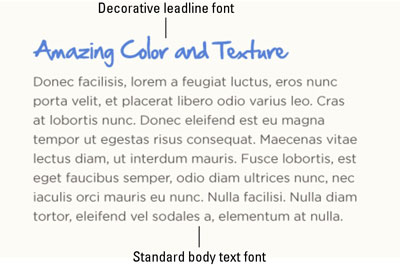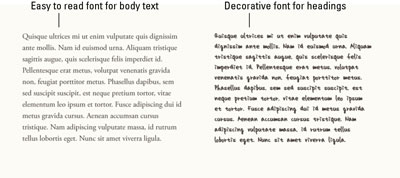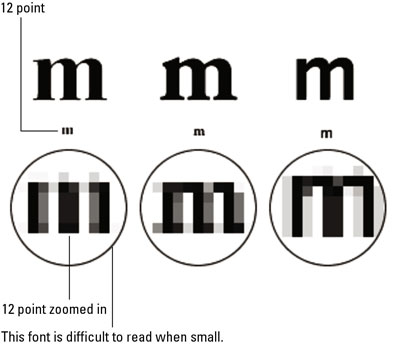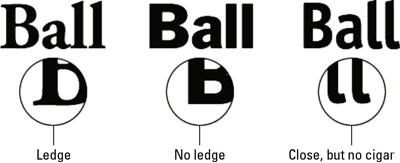
How to Choose Fonts for Your Website
Some fonts don't work well on websites. Unfortunately, too many fonts exist these days for you to find a complete listing of which ones do and which ones don’t. Also, it’s important to understand that fonts, like fashion, go in and out of style for use on the web (for a quick example of an unfashionable font, just do a search on Comic Sans). But there are some general guidelines to help you select the right fonts for different applications.
Standard versus display fonts in web design
In order to choose the right font for your website, you should be familiar with the different categories of fonts. Generally, you should use standard fonts for pages of body text and reserve the fancier or decorative fonts, often called display fonts, for short headings, callouts, and subheadings.
Standard fonts include Garamond, Times, Georgia, Arial, Helvetica, and Verdana, which were designed for legibility and work well for larger blocks of text. They’re common fonts that many people have heard of. There are a number of fonts, however, that fall into the standard category with names that you may not recognize.
Font weights for body copy are usually called Roman, Body, or Regular. Readers aren’t distracted by the design of these classic fonts, enabling them to focus on the text at hand. Standard fonts are designed for easy reading, so they work well in the smaller point sizes and in larger blocks of text.
Fancier fonts, on the other hand, or other weight variants of a font like Bold, Condensed, Semi Bold, Black, and Ultra, have a lot of detail and personality, ideal for larger-set headings and subheadings consisting of a few words. These fonts grab people’s attention, but they aren’t designed for a long page of text. You can often distinguish the decorative fonts just by their names, such as Kid Print, Comic Sans, and so on (see the following figure).
Font thickness on the web
The thickness of each individual letter (or line weight) contributes greatly to a font’s readability. Because pixels on computers aren’t comparatively very small, fonts that are too thin can fade away into oblivion, especially at smaller point sizes.
If you examine any font, you notice that the thickness varies in each letter. For example, take a look at the letter m in the example, below. The letter is set in a few different typefaces for comparison. Some fonts, such as Kepel Bold (the example on the far left), change drastically between the thick and thin areas of a single letter. At a small point size, for the letter m, all you see is a blob of three bold strokes — the thin strokes disappear altogether. When choosing fonts for small-point-size text, therefore, find versions that don’t have a big variance in the stroke thickness. Also, avoid the lightweight editions of fonts — they’re too thin to read at a small point size. (Most font families come in a variety of thicknesses, ranging from light for the thinnest of the set to bold, black, and ultra for progressively heavier line weight.)
Serif versus sans-serif fonts in web design
Your font education won’t be complete until you know the difference between serif and sans-serif fonts. A serif is the little ledge that adorns the tips of a letter. Sans-serif fonts, on the other hand, don’t have these ledges. Some modern sans-serif fonts do have little embellishments on their tips, making you look twice, but they’re still considered sans-serif fonts. Both serif and san-serif fonts can be used for larger blocks of body copy. Typically, serif fonts give the page a more conservative, classy, or newsy look, while using san-serif fonts yields a cleaner, more modern feel.
The fonts on the lists all survived the 10-point test: They are all readable when set at just 10 points, which is the smallest font size for text that you should ever consider for body copy in web design (best to set at 11 points at least).
Try mixing serif and sans-serif fonts together. For example, use one style for headings and the other style for the body text. Choosing a set of two to three fonts for your website — one for each different kind of type element — helps to add visual interest to the page, as in the following example.